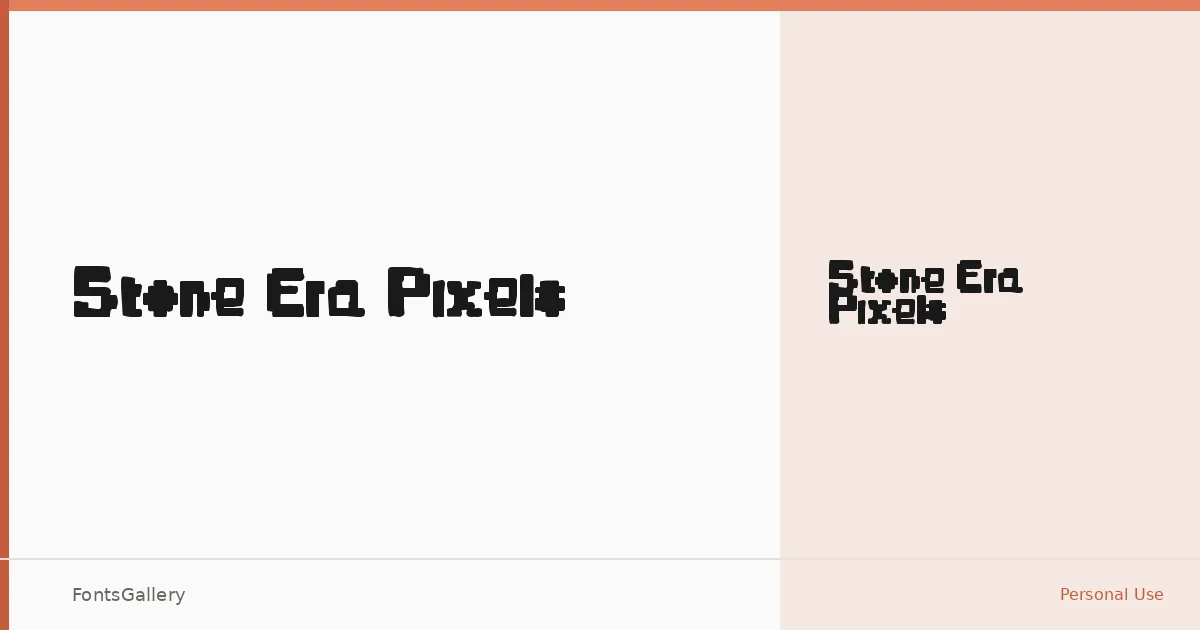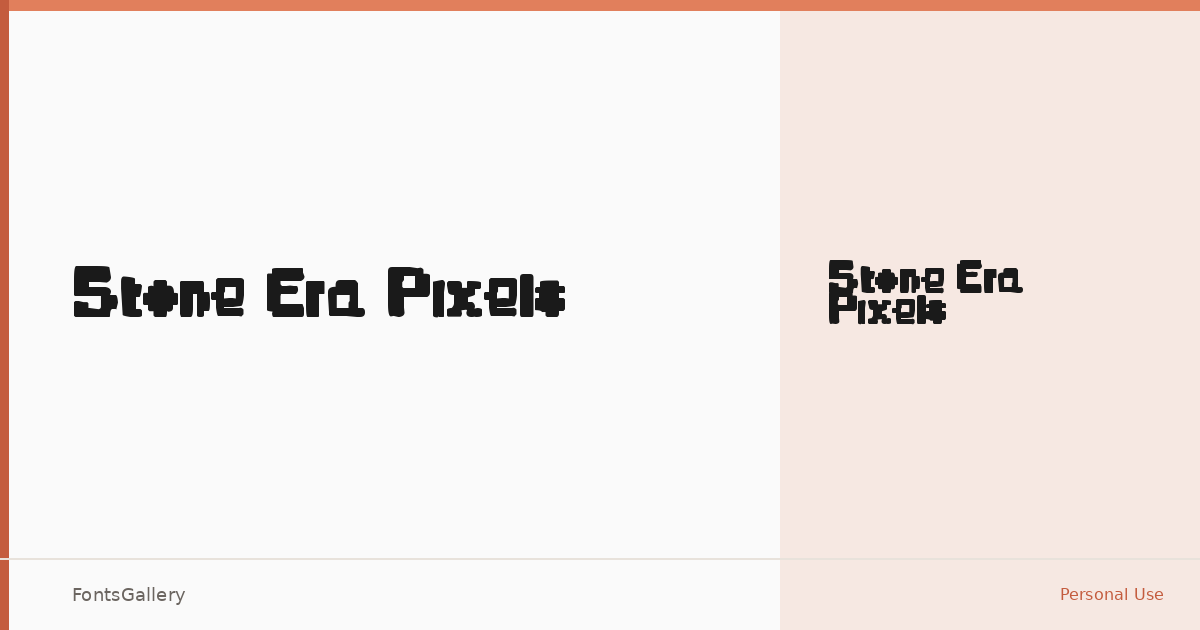
About Stone Era Pixels Font
There is a deliberate roughness to these letterforms — a pixelated, chiseled quality that sits somewhere between cave-wall carving and lo-fi digital type. The single cut available, Regular Normal, was built in FontCreator by Lars manenschijn and carries a copyright from 2009. The texture feels intentional rather than unfinished, giving each character a worn, hand-hewn weight.
This is a display face with a bold, grunge-inflected personality that leans into vintage sensibility without losing a certain playful edge. The pixel-derived stroke treatment keeps everything feeling raw and energetic — the kind of letterform that reads loudly at large sizes and holds its attitude in a single headline. Coverage extends across Latin, Cyrillic, and Greek scripts, which broadens its reach considerably for a display family of this character. It ships as a TTF file with editable embedding permissions.
The face earns its keep in branding work, poster design, logo treatments, social media graphics, and T-shirt design — anywhere a rough, expressive headline needs to anchor the composition. For body copy or supporting text, pairing it with a clean, neutral sans like Helvetica, Aileron, or Aresink creates the kind of contrast that keeps the grunge character from overwhelming a layout; Aranea or Alexandria can offer a slightly warmer counterpart when the job calls for it.